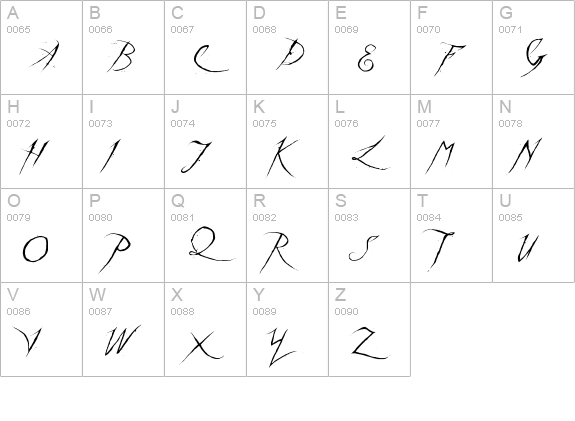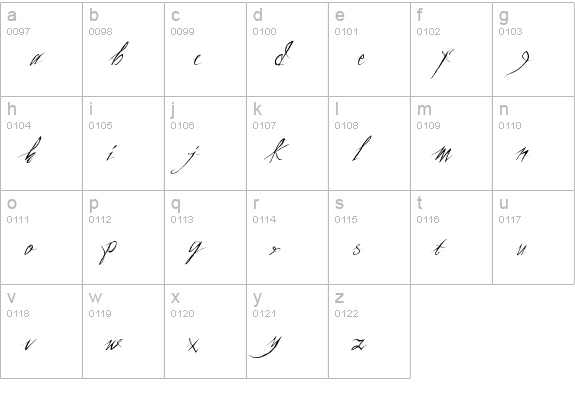
a Theme for murder Font Details
Introducing the captivating and enigmatic Theme for Murder font, an exquisite typeface that will transport you to the thrilling world of suspense and mystery. This font is the perfect embodiment of intrigue and suspense, with its dark and twisted letterforms that evoke a sense of foreboding and anticipation. With its intricate and carefully crafted design, Theme for Murder font is sure to captivate and mesmerize any audience. Its sharp edges and bold strokes make a powerful impact, while its unique and eerie letter shapes add an element of mystery and suspense to any project. What sets this font apart is not only its striking aesthetics but also its versatility. Whether you are working on a chilling crime novel cover, a spine-tingling movie poster, or a mysterious website design, Theme for Murder font will effortlessly enhance your project and bring your vision to life. And the best part? This extraordinary font is available for free download exclusively at FontsMarket.com. Now, you can unleash your creativity and immerse yourself in the world of murder mysteries without breaking the bank. Simply visit FontsMarket.com and download Theme for Murder font to embark on your thrilling design journey. So, don't miss out on this incredible opportunity to add a touch of suspense and intrigue to your creative endeavors. Download Theme for Murder font today and let your imagination run wild. Get ready to leave your audience spellbound with this freely available font that will undoubtedly make a lasting impression.